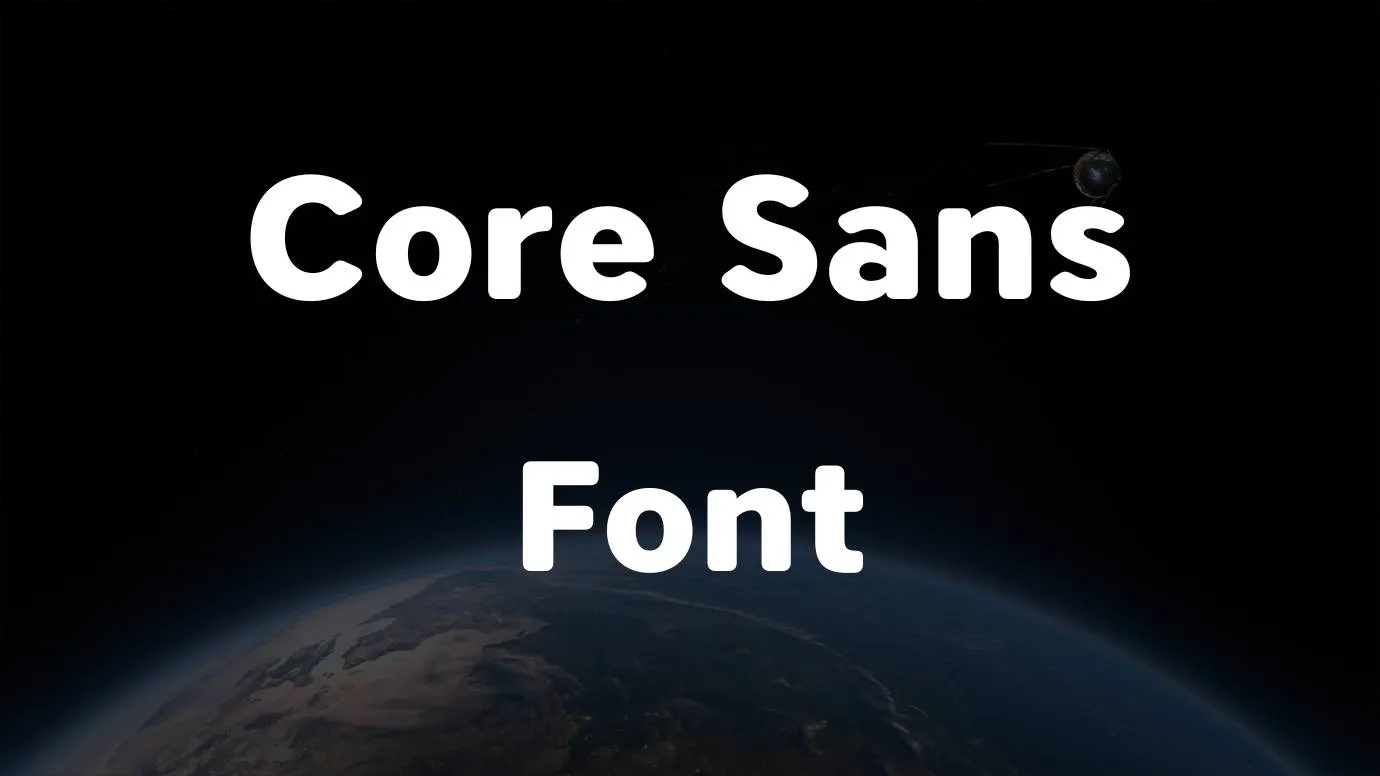
Core Sans Ar font family is a member of the Core Sans family series, which are Core Sans N SC, Core Sans N, Core Sans NR, and Core Sans M. This font family belongs to the Sans-serif typeface family and is one the most highly used font family.
The spaces between separate letterforms are perfectly adjusted to make the superb typesetting. You can also use this font with the pairing of Myriad Pro Font with this font for your web design project.
Core Sans AR Font